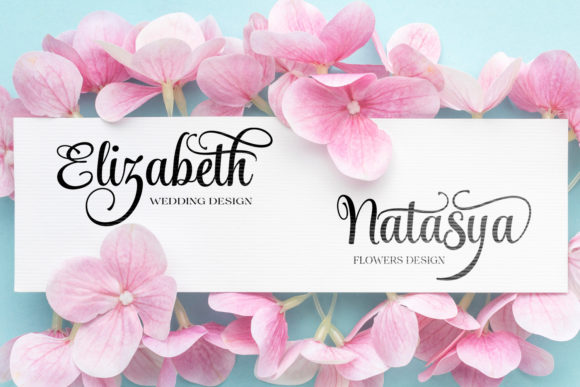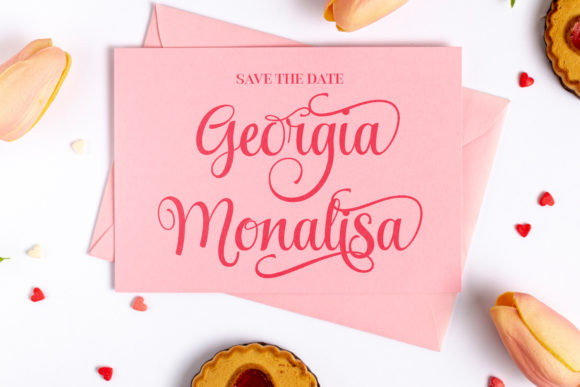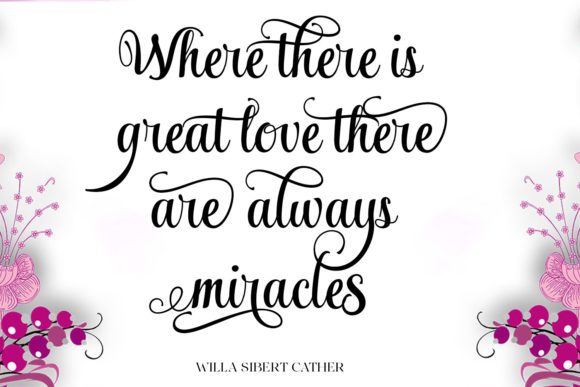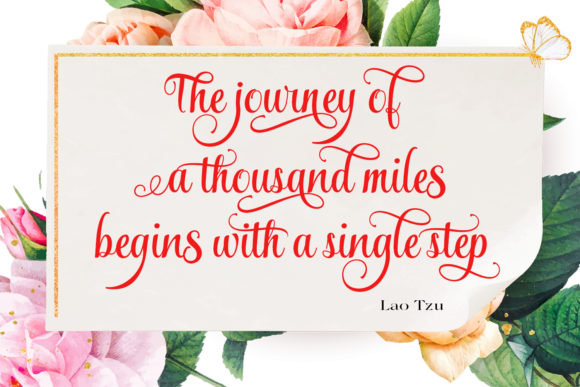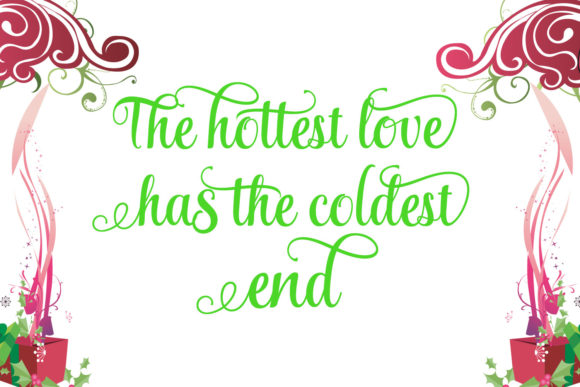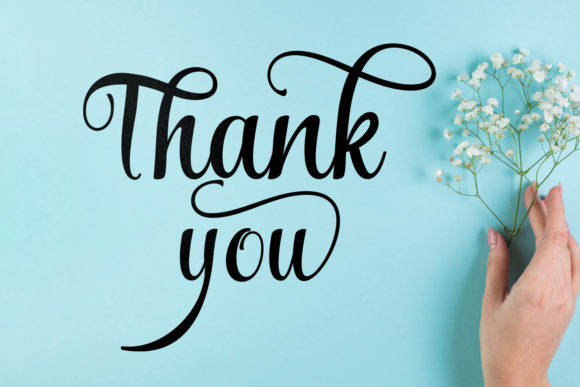
Qonitha Font
About Qonitha Font
Qonitha Script is a soft and sweet calligraphic typeface, characterized by characters that gracefully dance along the baseline. With its casual and elegant touch, this font is versatile and well-suited for a variety of purposes. Whether used for logos, wedding invitations, headings, t-shirts, letterheads, signage, labels, news, posters, badges, and more, Qonitha Script adds a charming and sophisticated aesthetic to your designs.
The soft and sweet nature of Qonitha Script makes it particularly fitting for projects that require a delicate and graceful appearance. Its calligraphic style adds a touch of elegance and fluidity to the text, creating a pleasant visual experience.
The inclusion of PUA encoding is a valuable feature, allowing easy access to a wide range of amazing glyphs and ligatures. This enhances the font’s versatility, providing designers with the freedom to customize and personalize their designs effortlessly. The availability of special characters and ligatures adds a layer of uniqueness to your typographic compositions.
In summary, Qonitha Script is more than just a font; it’s a soft and sweet calligraphic typeface that brings a touch of elegance to your designs. Its versatility and PUA encoding make it a valuable asset for a variety of creative projects. Let Qonitha Script be the font that adds a charming and sophisticated flair to your logos, invitations, and other design endeavors.